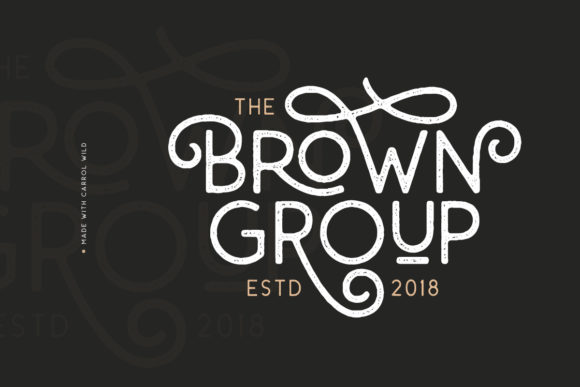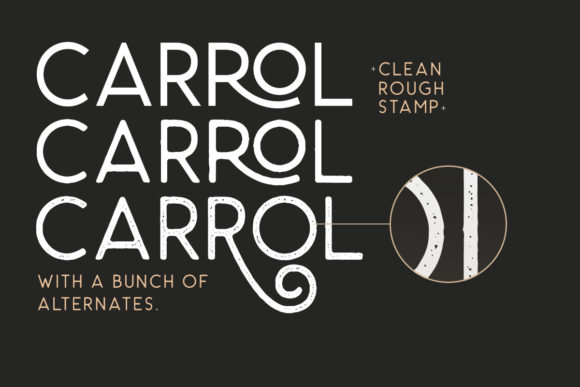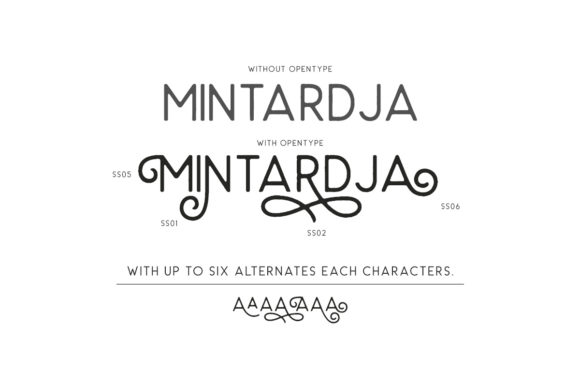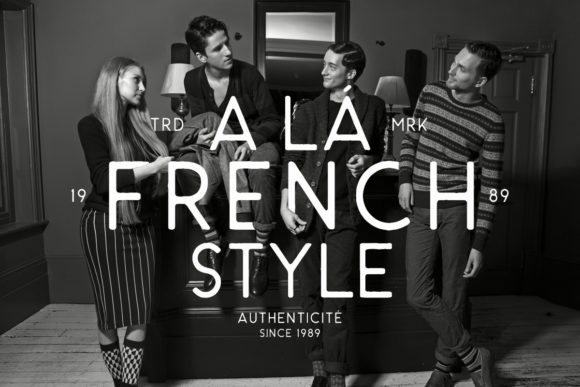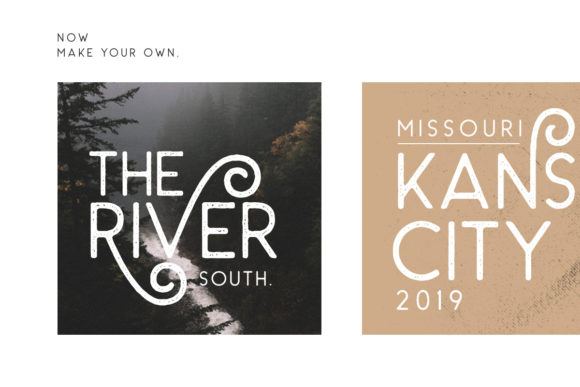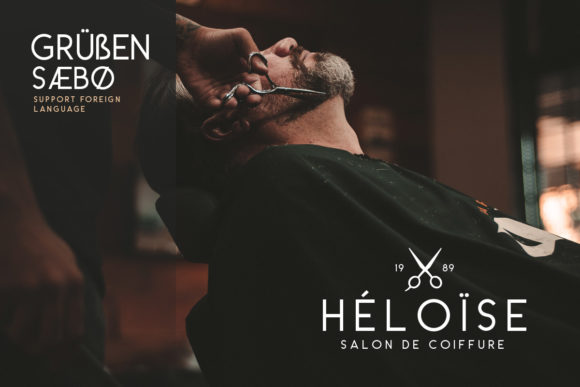
Unleash Your Creativity with Carrol Wild Font: A Modern Sans with Endless Possibilities
Are you tired of using the same old fonts for your designs? Look no further than the Carrol Wild Font, a modern sans-serif font that is as wild as it is versatile. With a plethora of alternates to choose from, this font is perfect for designers and crafters looking to add a unique touch to their work.
What is Carrol Wild Font?
The Carrol Wild Font is a sans-serif font that boasts a modern and edgy aesthetic. Its clean lines and geometric shapes make it perfect for a wide range of design applications, from logos and quotes to pairing with script fonts. But what really sets Carrol Wild apart is its extensive collection of alternates.
Alternates Galore: Up to 6 Variations per Alphabet
One of the most exciting features of the Carrol Wild Font is its staggering number of alternates. Each alphabet has not one, not two, but up to 6 different variations to choose from. This means that you can mix and match letters to create a truly unique look that reflects your brand or design style.
Whether you’re looking to add a touch of whimsy to your design or create a bold and statement-making font, Carrol Wild has got you covered. With so many alternates to choose from, the possibilities are endless.
Use Cases for Carrol Wild Font
So, how can you use the Carrol Wild Font in your designs? The answer is: in countless ways! Here are just a few ideas to get you started:
- Logos: Use Carrol Wild to create a bold and modern logo that stands out from the crowd. With its geometric shapes and clean lines, this font is perfect for tech startups, creative agencies, and innovative brands.
- Quotes: Add a touch of personality to your quotes with Carrol Wild. Its alternates allow you to mix and match letters to create a unique and eye-catching design.
- Pairing with Script Fonts: Carrol Wild pairs perfectly with script fonts, creating a beautiful contrast between modern sans and elegant script. Try pairing it with a flowing script font for a stunning effect.
Why Choose Carrol Wild Font?
So, why should you choose Carrol Wild Font for your next design project? Here are just a few reasons:
- Versatility: With its extensive collection of alternates, Carrol Wild can be used in a wide range of design applications.
- Modern Aesthetic: Carrol Wild’s clean lines and geometric shapes make it perfect for modern designs that require a bold and edgy look.
- Easy to Read: Despite its wild and playful nature, Carrol Wild is incredibly easy to read, making it perfect for body text and captions.
Tips for Using Carrol Wild Font
Here are a few tips for getting the most out of Carrol Wild Font:
- Experiment with Alternates: Don’t be afraid to try out different alternates to create a unique look.
- Pair with Other Fonts: Carrol Wild pairs well with a wide range of fonts, so don’t be afraid to experiment with different pairings.
- Use for Headings: Carrol Wild is perfect for headings and titles, where its bold and modern aesthetic can really shine.
In conclusion, the Carrol Wild Font is a versatile and modern sans-serif font that is perfect for designers and crafters looking to add a unique touch to their work. With its extensive collection of alternates, clean lines, and geometric shapes, this font is sure to unleash your creativity and take your designs to the next level.